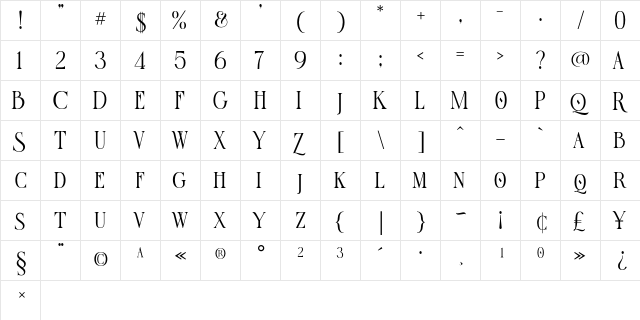
RustlerBarter Regular
| Foundry | Showup! Typefoundry |
| Designer | Aulia Rahman, Hendra Maulia |
Design Context for RustlerBarter Typeface
RustlerBarter offers clean, dependable letterforms without strong stylistic allegiance, making it a practical choice for designers who need flexibility.